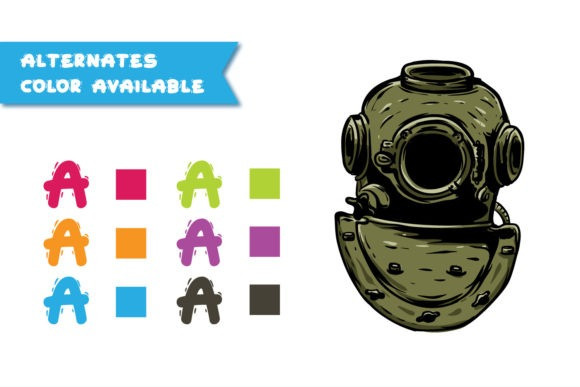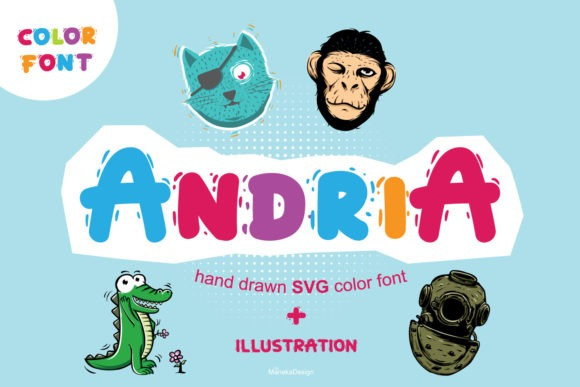
Andria Font
Andria Display Font is a fun, friendly and thick lettered display font. This font is PUA encoded which means you can access all of the amazing glyphs and ligatures with ease!
Andria is perfect for children themed designs, especially when combined with bright colors.